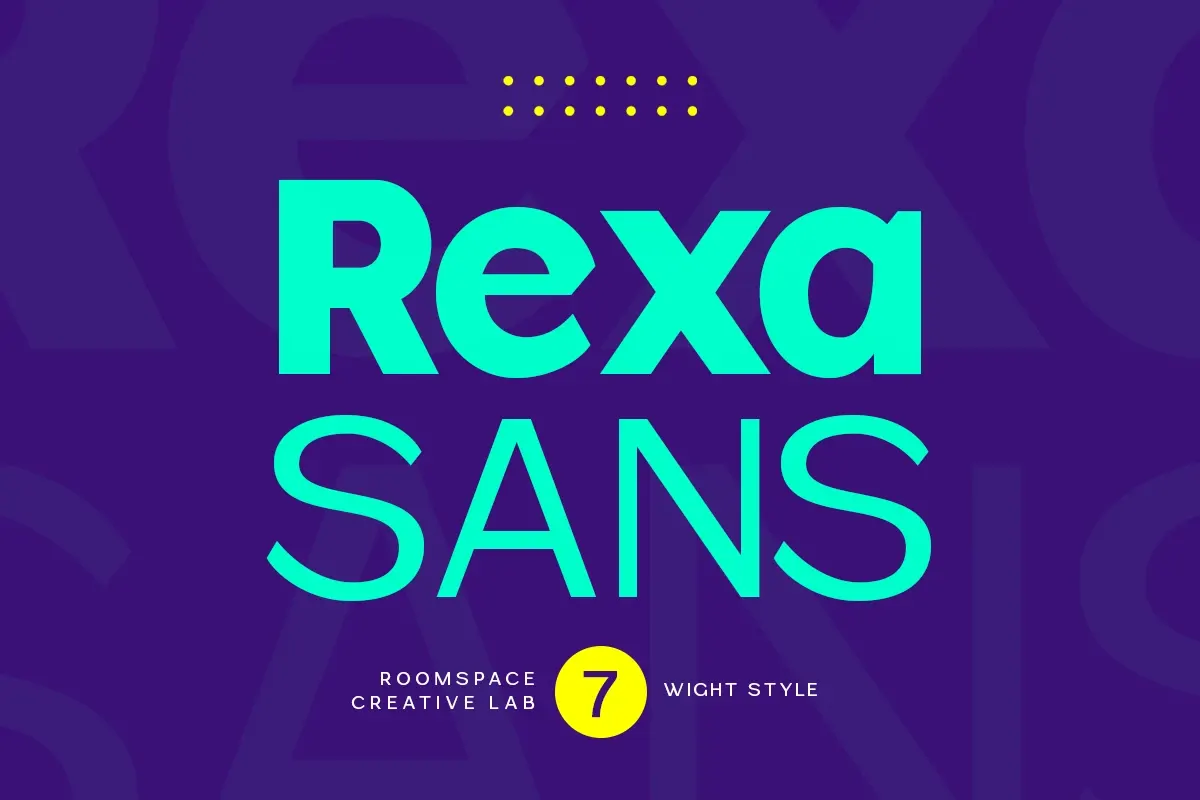
Rexa Sans-Serif Typeface Free Download is a clean, modern sans-serif typeface designed for clarity, versatility, and readability. With its geometric structure and balanced proportions, Rexa is perfect for both digital and print applications, including websites, branding, logos, social media graphics, and editorial designs.
Its minimalist design makes it ideal for professional use, offering a sleek and contemporary feel while maintaining strong legibility across all sizes. Whether you're creating a modern brand identity or a stylish website, Rexa provides a polished, professional look to any project.